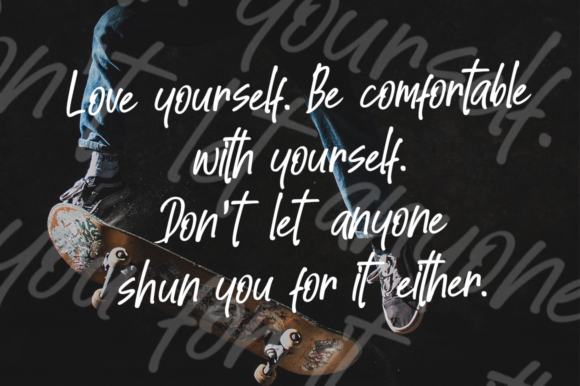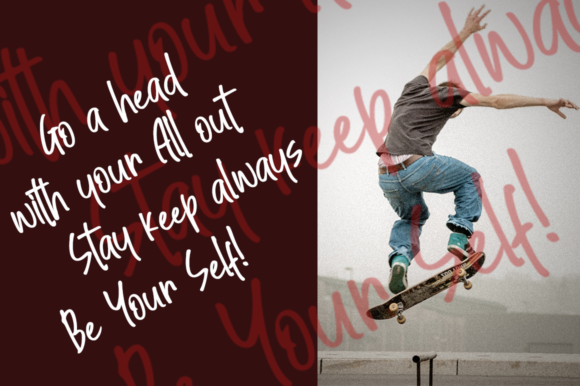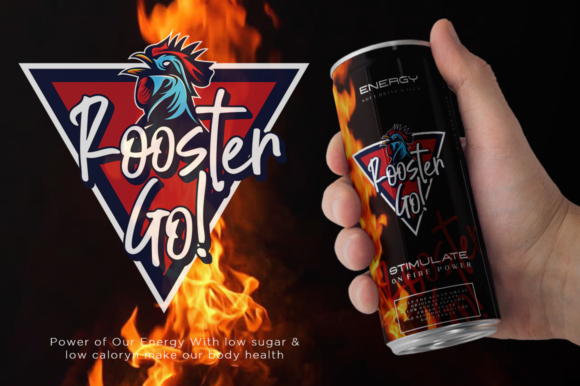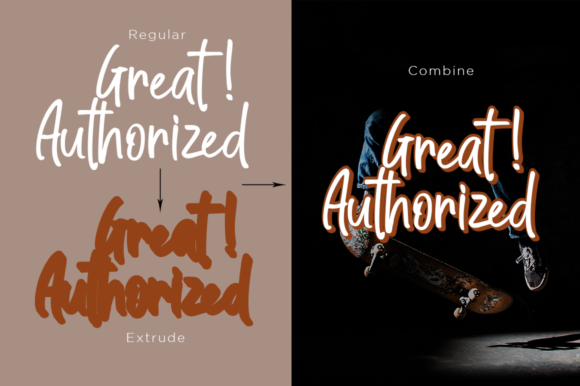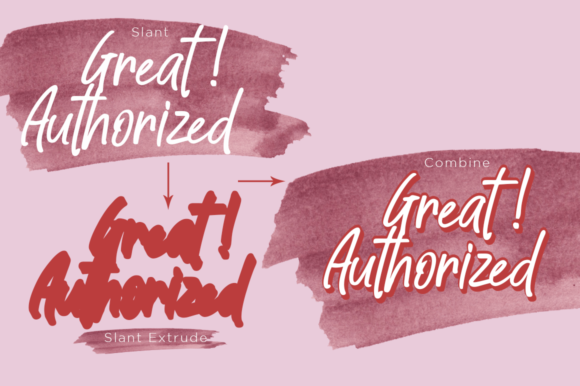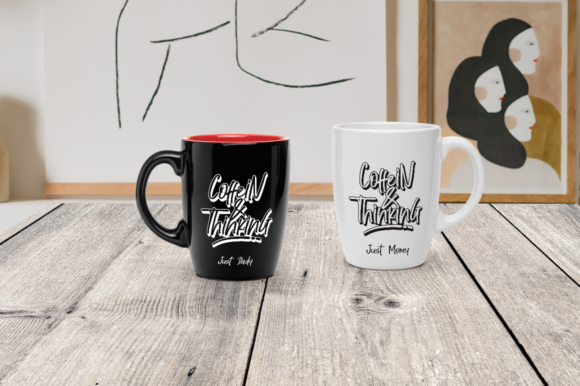
Introducing Great Authorized Font: Elevate Your Designs with Elegance and Boldness
In the world of design, fonts play a crucial role in conveying the message and aesthetic of a project. Among the numerous fonts available, Great Authorized stands out as a natural and bold handwritten font that exudes extraordinary elegance. This versatile font is designed to help you create unique designs in an instant, making it a valuable addition to your typography arsenal.
What Makes Great Authorized Font Special?
Great Authorized is not just another font; it’s a design statement. Its natural and bold handwritten style gives it a distinctive charm that can instantly elevate your projects. Here are some key features that make Great Authorized a must-have for designers and crafters:
- Natural and Bold: The font’s natural and bold appearance makes it perfect for creating eye-catching designs that demand attention.
- Extraordinary Elegance: Great Authorized’s elegant strokes and fluid letterforms bring a touch of sophistication to any design.
- Versatility: This font is suitable for a wide range of projects, from branding and advertising to packaging and digital media.
- Easy to Read: Despite its bold nature, Great Authorized remains highly legible, ensuring your message is conveyed clearly.
Great Authorized is an excellent choice for designers and crafters looking to add a personal touch to their work. Whether you’re creating:
- Branding Materials: Use Great Authorized to create memorable logos, business cards, and letterheads that reflect your brand’s personality.
- Digital Content: Enhance your blog posts, social media graphics, and website headers with this elegant and bold font.
- Packaging: Make your product packaging stand out with Great Authorized’s unique and eye-catching style.
- Art and Crafts: Add a touch of elegance to your handmade crafts, such as journals, planners, and greeting cards.
Tips for Using Great Authorized Font Effectively
To get the most out of Great Authorized, consider the following tips:
- Pair with Complementary Fonts: Combine Great Authorized with simpler fonts to create visual interest and hierarchy in your designs.
- Experiment with Colors: Try Great Authorized with different colors to find the perfect match for your brand or project’s aesthetic.
- Play with Sizes: Use varying font sizes to create emphasis and add depth to your designs.
Great Authorized font is a powerful tool for designers and crafters seeking to create unique and elegant designs. Its natural and bold handwritten style, combined with its versatility and readability, make it an excellent addition to any design project. With Great Authorized, you can elevate your designs and make a lasting impression on your audience.